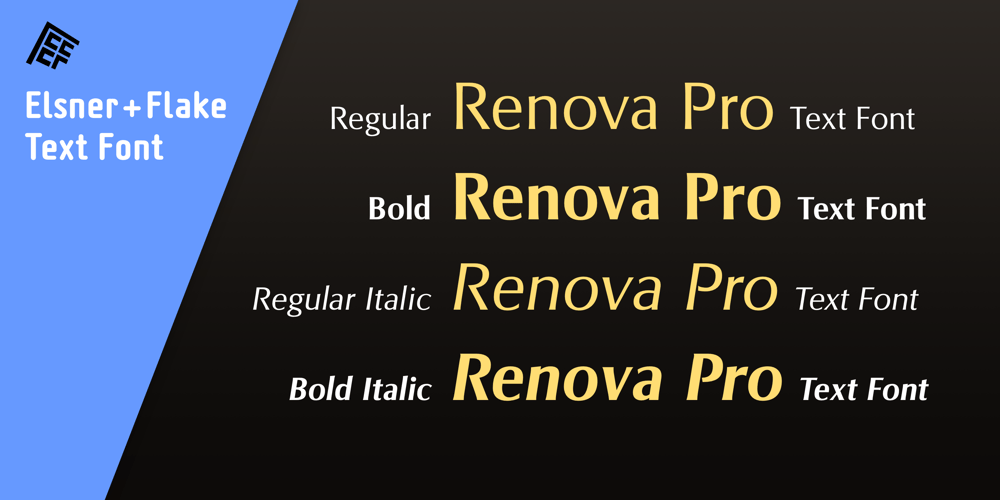
Renova Pro Font Family was designed by Günther Flake and published by Elsner+Flake. Renova Pro contains 4 styles and family package options. Renova was designed by Elsner+Flake in the late 90s as a contractual work. The font family comes as a typical Office pack in EuropePlus layout for at least 72 Latin languages. It is optimized for good legibility in small point sizes.